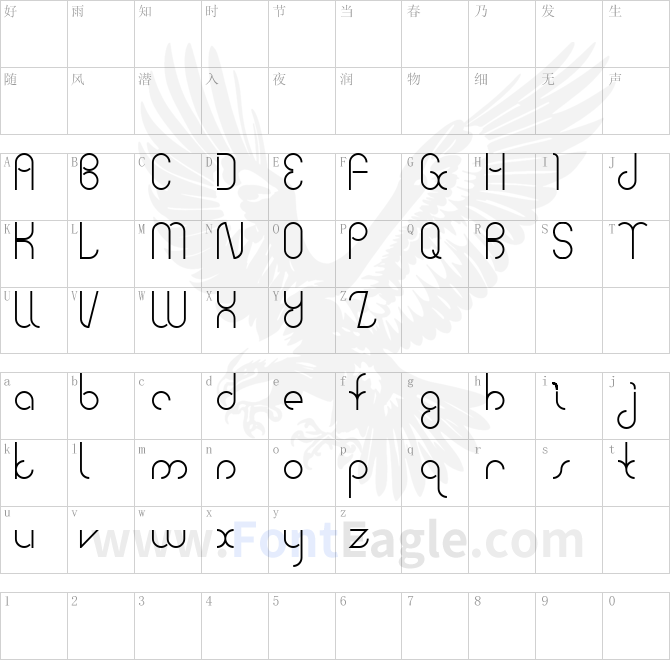
Bauhaus-Two is a great font, widely used in graphic design, single-page menu design, poster design and other fields, and is deeply loved by designers.Bauhaus-Two download.